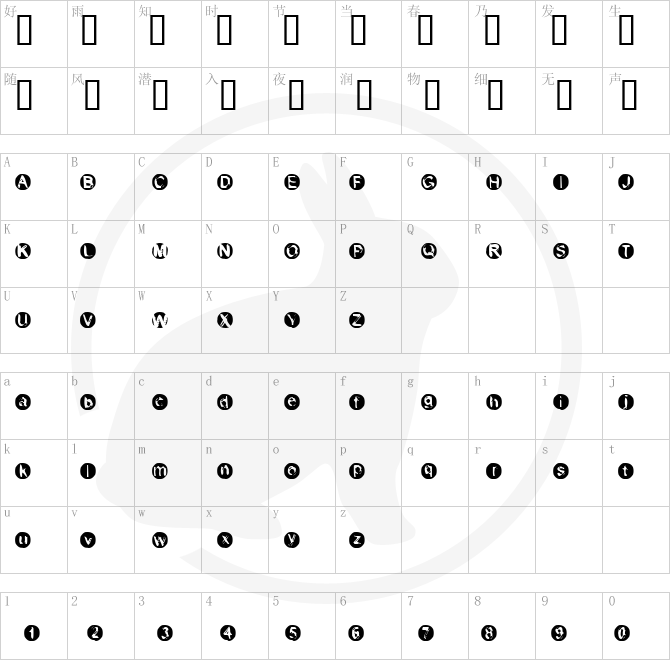
- Font Name:Xeroprint
Xeroprint-Filetype.ttf is a very beautiful artistic font, Xeroprint-Filetype.ttf is widely used in the design and printing of various books and pictures,Xeroprint-Filetype.ttf has a strong visual impact,Xeroprint-Filetype.ttf is a commonly used font in newspapers, magazines and books, and is used in posters, e-commerce Poster design, store design, logo design, font design and other fields.Xeroprint-Filetype.